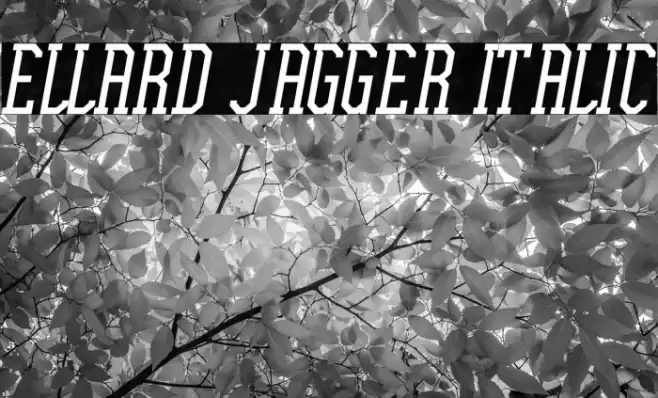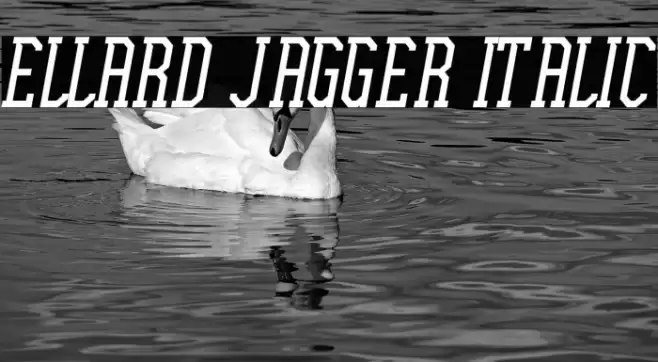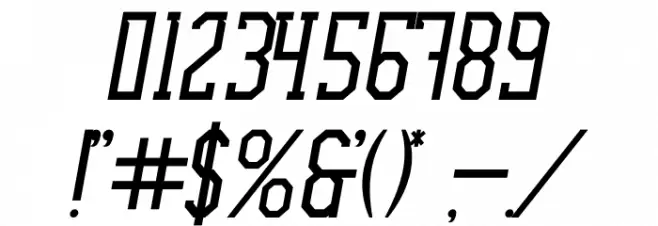
Ellard Jagger Italic Font
Ellard Jagger Italic Description
This font exhibits a bold and angular style with a distinct italic slant, giving it a dynamic and energetic appearance. The characters are sharply defined with a consistent stroke width, contributing to a modern and edgy look. The uppercase letters have a uniform height, while the lowercase letters maintain a similar style with slightly reduced size. The numerals are clear and bold, matching the overall aesthetic. Special characters are well-integrated, maintaining the font's cohesive design. The angular nature of the characters suggests a futuristic or industrial theme, making it suitable for projects that require a strong visual impact.
A bold, angular italic font with a modern and dynamic style from Uncategorized fonts.